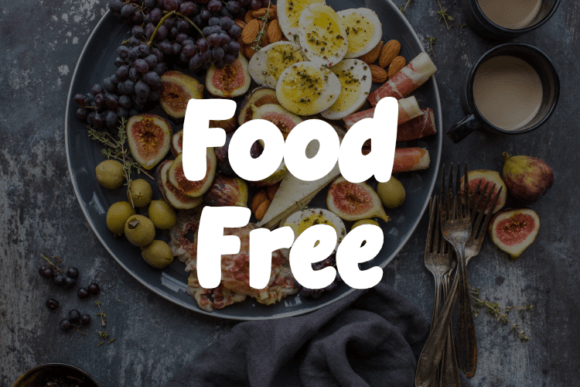
Food Free Font: Savor the Flavor of Creativity with Sadikem Typeface
In the world of design, typography plays a crucial role in conveying messages, evoking emotions, and adding personality to creative projects. For those who appreciate the fusion of food and art, the Food Free Sadikem typeface is a game-changer. This charming font is specifically designed to add a dash of culinary charm to your clothing items, t-shirts, and other artistic creations. In this article, we’ll dive into the world of Food Free Font and explore how Sadikem typeface can elevate your designs to new heights.
Key Features of Food Free Sadikem Typeface
- Culinary Charm: Food Free Sadikem typeface boasts a unique design that combines the warmth of food with the elegance of typography.
- Versatility: Perfectly blended for any design concept, this font is ideal for a wide range of creative projects, from clothing items to artistic creations.
Design Inspiration: Where Food Meets Art
The Food Free Sadikem typeface is more than just a font – it’s a design inspiration. Imagine adding a sprinkle of culinary charm to your t-shirts, hats, or bags. With Sadikem, you can create eye-catching designs that appeal to foodies, art lovers, and anyone who appreciates the beauty of typography. Whether you’re a designer, artist, or entrepreneur, this font is perfect for:
- Food blogs and recipe books
- Restaurants and cafes
- Clothing and accessory brands
- Artistic creations and crafts
Typography Tips: Getting the Most out of Food Free Sadikem
To make the most of the Food Free Sadikem typeface, here are some typography tips to keep in mind:
- Play with font sizes: Experiment with different font sizes to create visual hierarchy and emphasis.
- Mix and match: Combine Sadikem with other fonts to create a unique and eye-catching design.
- Pay attention to spacing: Adjust the letter spacing to achieve a balanced and harmonious design.
- Experiment with colors: Try out different colors to add depth and personality to your design.
Design Examples: Bringing Food Free Sadikem to Life
To inspire your creativity, here are some design examples that showcase the versatility of Food Free Sadikem typeface:
Conclusion: Savor the Flavor of Creativity with Food Free Font
In conclusion, the Food Free Sadikem typeface is a delightful font that can add a dash of culinary charm to your designs. With its versatility, seamless compatibility, and multi-format support, this font is perfect for a wide range of creative projects. Whether you’re a designer, artist, or entrepreneur, Food Free Sadikem is sure to inspire your creativity and bring your designs to life.